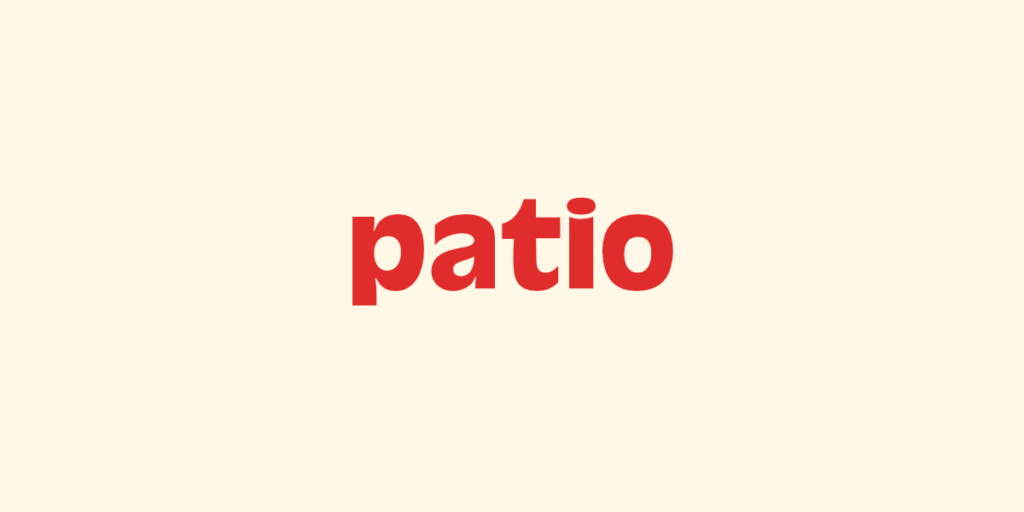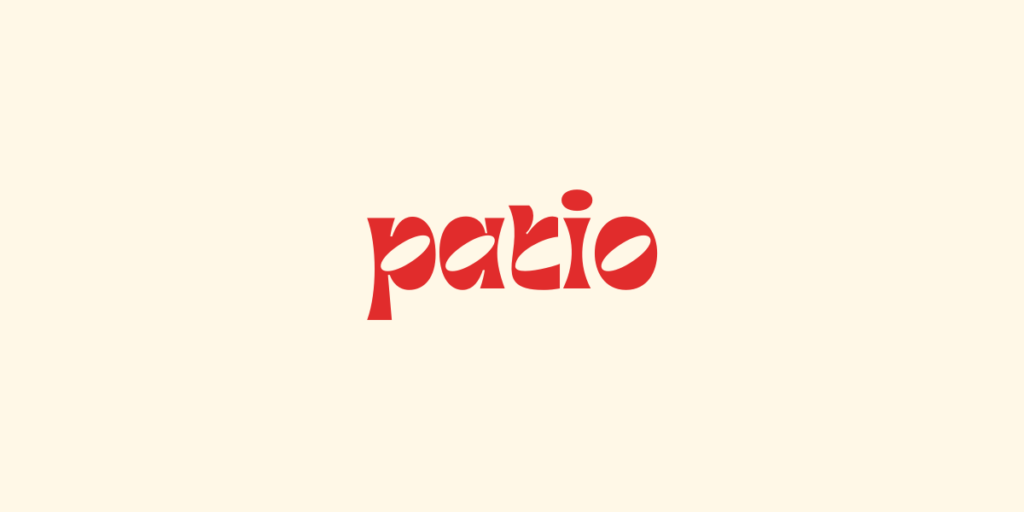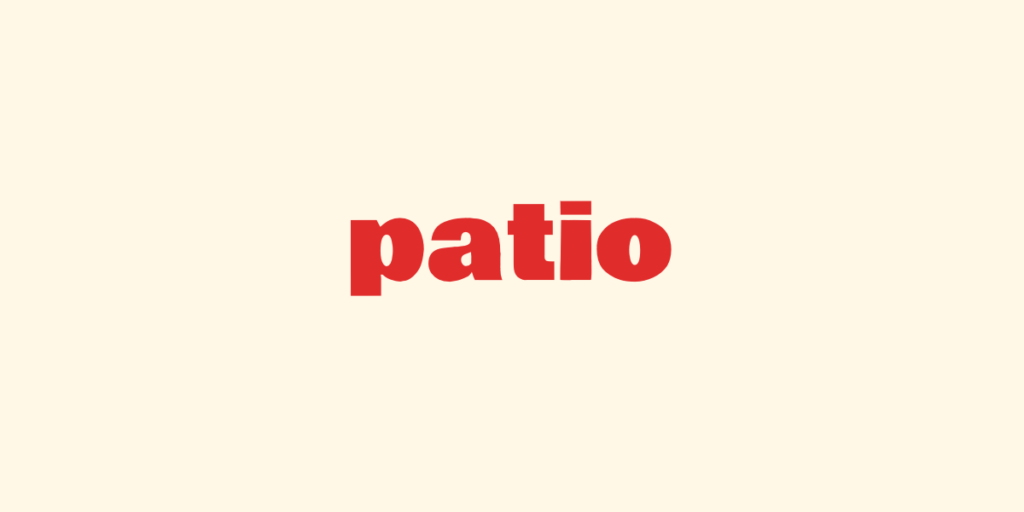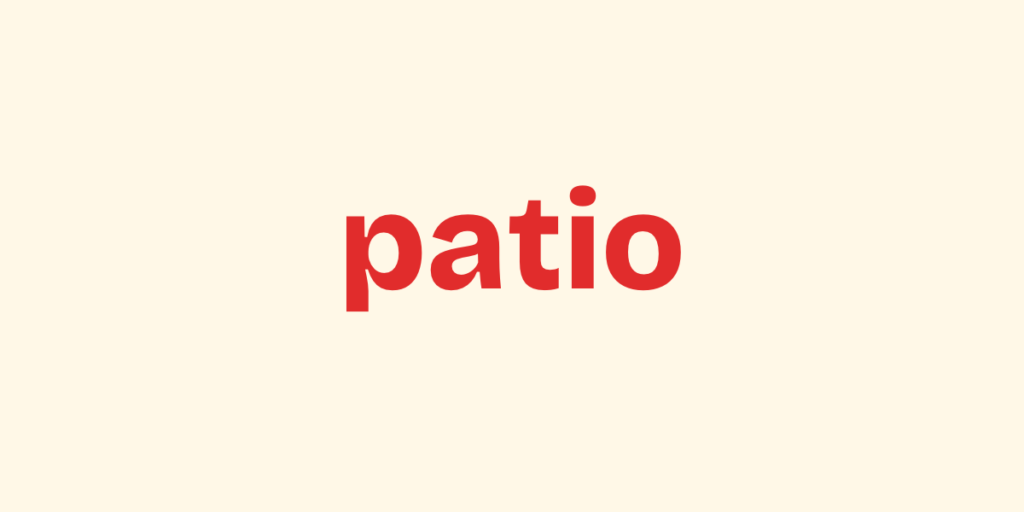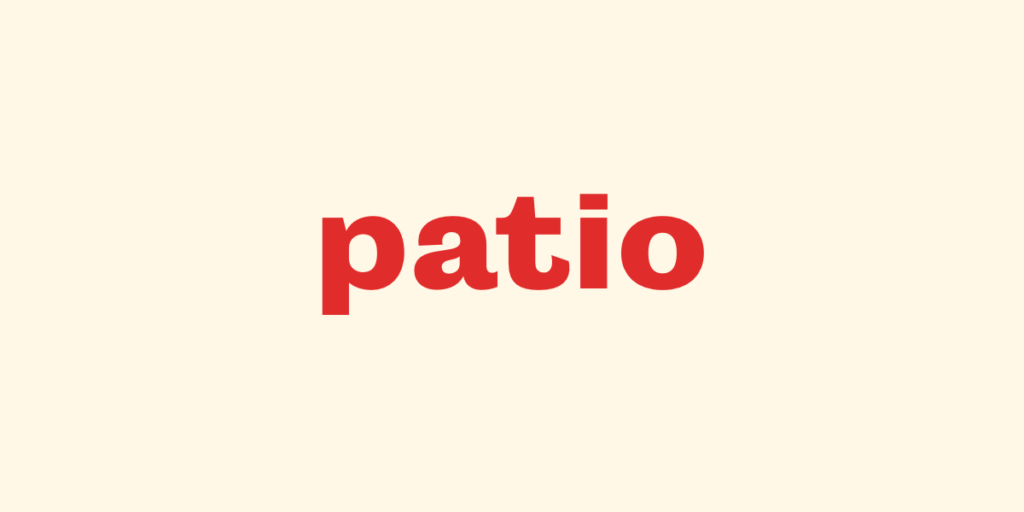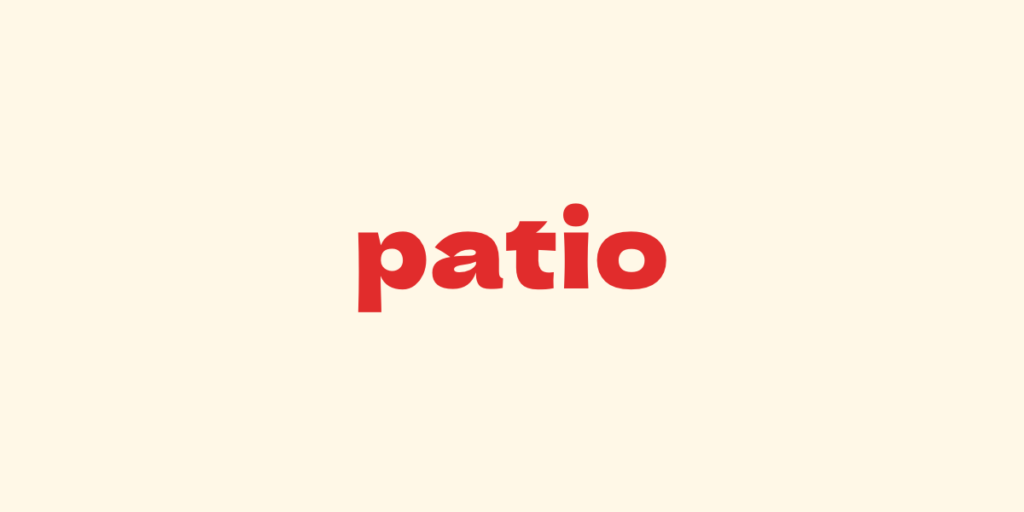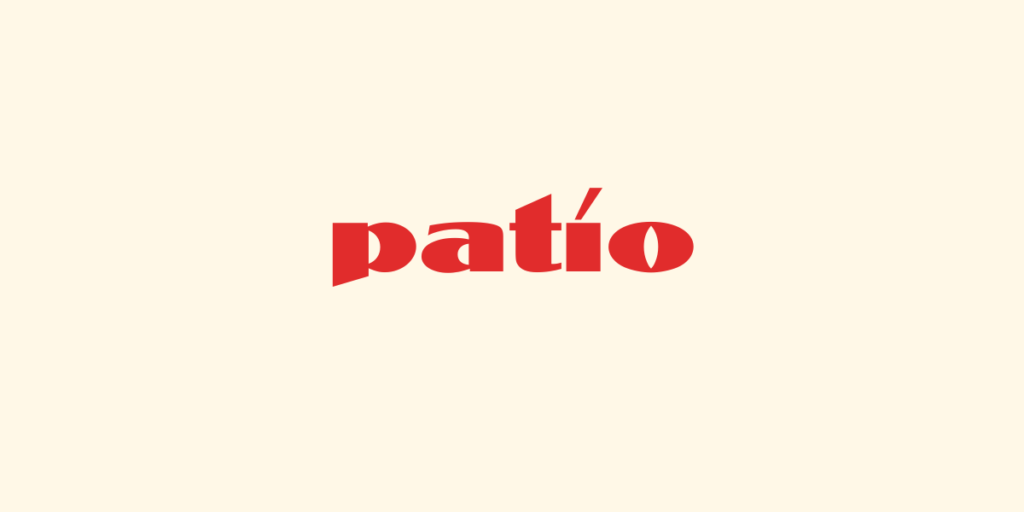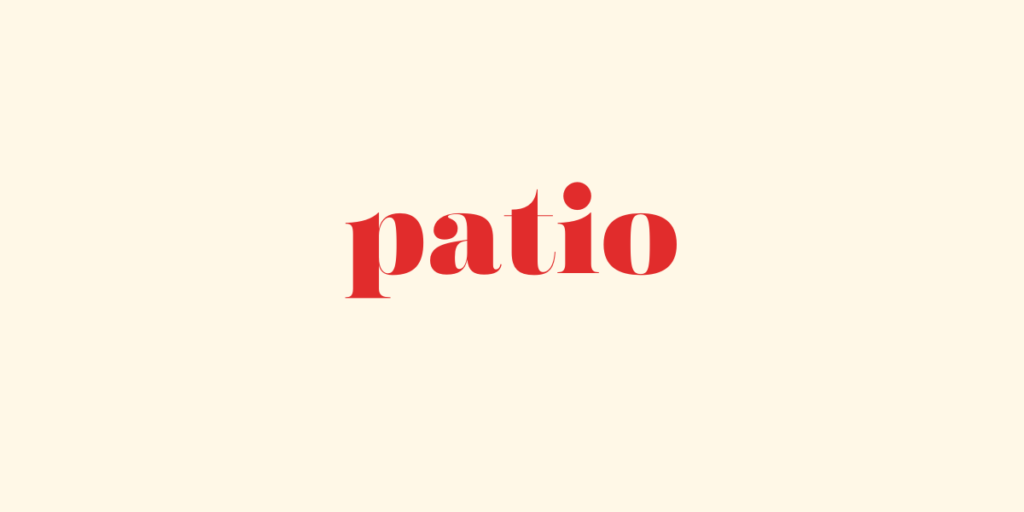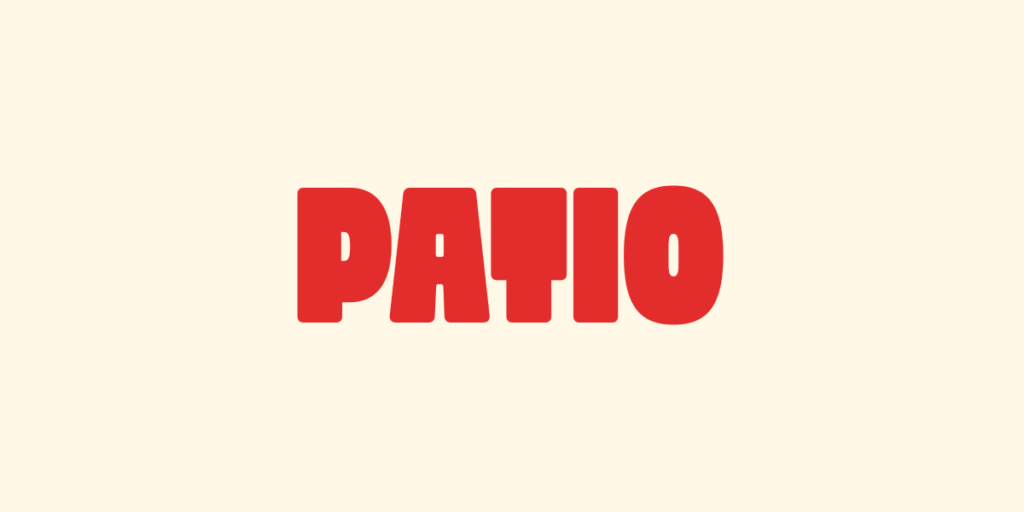
You know when you see a brand identity and it just clicks?
It’s strong, unique, and sticks in your mind long after you’ve scrolled past it.
Well, one of the secret weapons behind that magic is -undoubtedly- typography.
Typefaces are the backbone of brand identity design. They quietly (and sometimes very loudly!) do the heavy lifting of communicating what a brand stands for and its distinctive personality.
So, yeah… not easy.
Not just any typeface will do the job.
For a brand identity to be strong, it’s crucial to choose the right typeface.
And if you’re specifically working on a brand identity with a bold and vibrant feel… the font you use has to turn heads and draw attention. It has to give your designs that unmistakable presence. It has to make a statement.
Like these brands below do ⤵︎
So, if you’re looking to give your brand identities and logos that bold, unforgettable edge, I’ve got just the thing for you.
Here are 24 fonts that pack a punch: eye-catching, daring, and unique typefaces ready to make your brand look as bold as the vision behind it.
Ready to meet the perfect font for your next bold brand identity design?
Let’s jump in!
😏 Oh, and before we begin… I’m not sure why, but ‘patio’ has been one of my go-to words to try typefaces for a long time. That’s why you’ll see it next to each font; to showcase it and so you can easily compare them and picture how they’d look in a logo.
The Font List
Gulfs Display
Designed by: Sundance Tipografia
Gazpacho
Designed by: Santi Rey
Genty
Designed by: Flavortype
ITC Zipper
Designed by: ITC
Bricolage Grotesque
Designed by: Mathieu Triay
Fabrica
Designed by: Fenotype
Antique Olive
Designed by: Roger Excoffon, URW Type Foundry
Barbra
Designed by: Nurron Shodiqin
Dolmen
Designed by: ITC
Neue Machina
Designed by: Pangram Pangram
Portland
Designed by: Fenotype
TAN Nimbus
Designed by: TanType
Ultra
Designed by: Astigmatic
Bowlby One
Designed by: Vernon Adams
Dela Gothic One
Designed by: Artakana
Sigmar
Designed by: Vernon Adams
Thick Thinks
Designed by: Martype Co
Campaign
Designed by: Mark Caneso
Podium Soft Variable
Designed by: Mateusz Machalski